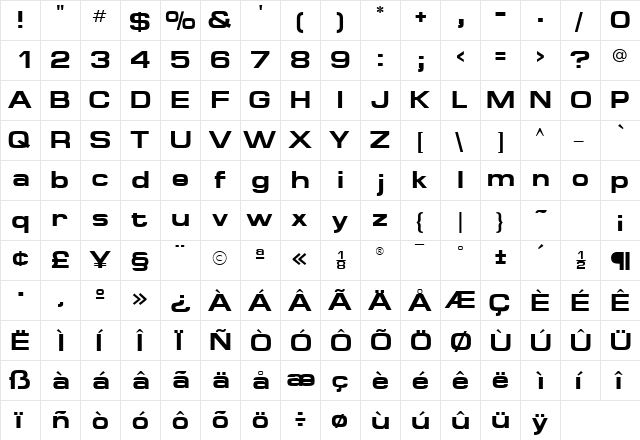
MinimaExpandedSSK Bold Font Preview
MinimaExpandedSSK Bold
Design Context for MinimaExpandedSSK Typeface
MinimaExpandedSSK takes a measured approach to typography — its balanced proportions and neutral character make it a reliable workhorse for both digital and print work. The heavy weight commands attention and anchors typographic hierarchies.